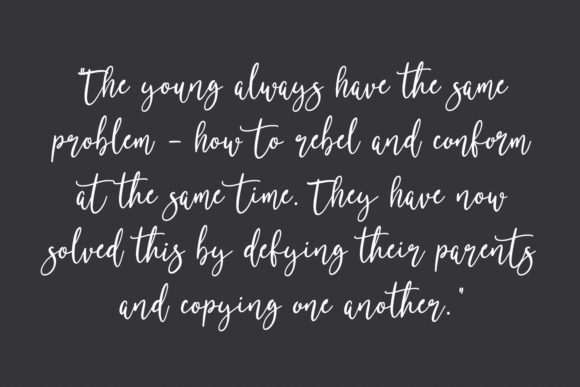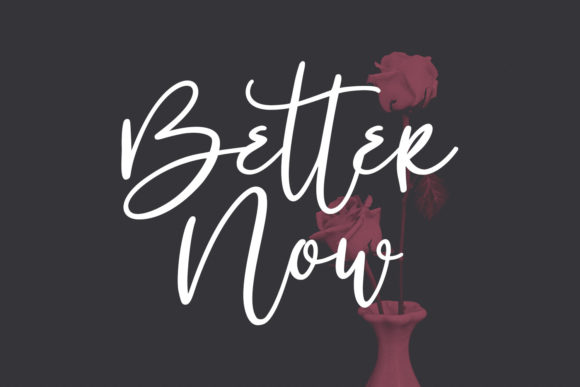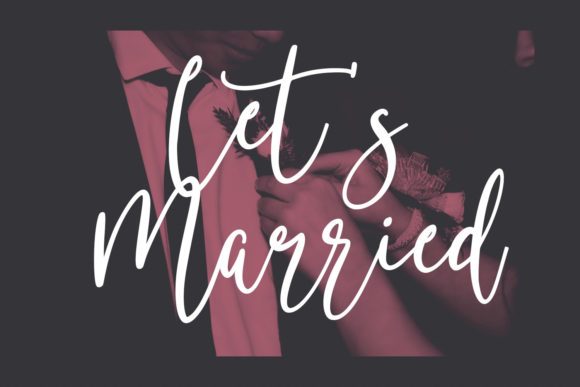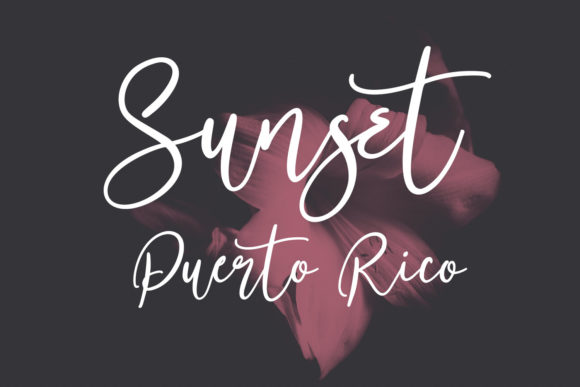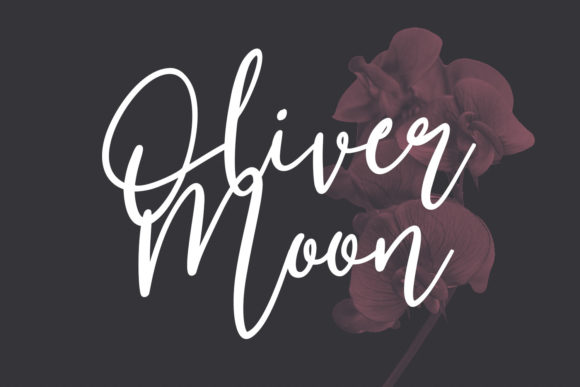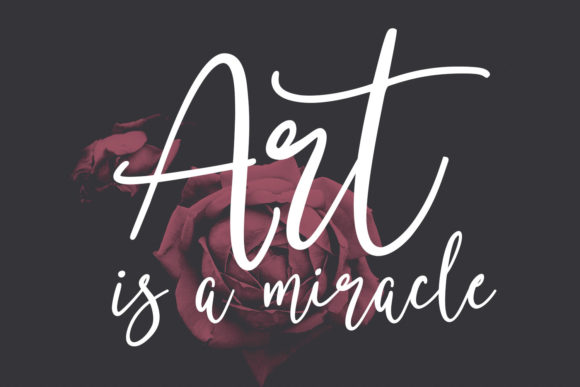
Introduction to Mostwest Script Font
Have you ever been scrolling through your design inspirations and stumbled upon a beautiful, elegant script that makes you wish you could use it in your next creative project? I know I have! That’s exactly what happened when I discovered the Mostwest Script Font. Its high-quality, handwritten design is simply irresistible, and I couldn’t wait to dive in and explore its possibilities.
As a designer, I know how valuable it is to have a reliable design resource like the Mostwest Script Font in your toolkit. With its transparent background and elegant lines, it’s perfect for adding a touch of sophistication to everything from wedding invitations to business cards. And the best part? It’s available for free download, making it an absolute must-have for any design project.
Key Features of Mostwest Script Font
- High-quality, hand-drawn design perfect for creative projects and personal use.
- Includes 6 styles (Regular, Italic, Bold, Bold Italic, Outline, and Shadow) for added flexibility.
- Designed with a modern, elegant aesthetic, suitable for a wide range of creative projects.
Honest Review: Mostwest Script Font
I recently came across the Mostwest Script Font, a beautiful design resource that I’d love to share my honest review with. As a designer, I’m always on the lookout for high-quality fonts to elevate my creative projects. The Mostwest Script Font is a stunning addition to any design arsenal.
- ✨ The font’s elegant, handwritten style makes it perfect for creating a warm and inviting atmosphere in any design project.
- ✨ The high-quality design ensures that the font remains crisp and clear, even on high-resolution displays.
- ✨ The transparent background option provides flexibility in designing with the font, making it easy to combine with other design elements.
However, I do have to mention a few limitations:
- ⚠️ The font may not be ideal for small text sizes, as the delicate script style can become difficult to read.
- ⚠️ Some users may find the font’s complexity overwhelming, requiring more time and effort to master.
Overall, I’m thoroughly impressed with the Mostwest Script Font. Its unique style and high-quality design make it an excellent addition to any designer’s toolkit. Whether you’re working on a creative project or simply need a beautiful font to enhance your designs, the Mostwest Script Font is definitely worth checking out.
The Mostwest Script Font is commonly used for invitations, wedding stationery, and other creative projects that require a touch of elegance. It’s also a popular choice for logos, branding, and marketing materials.